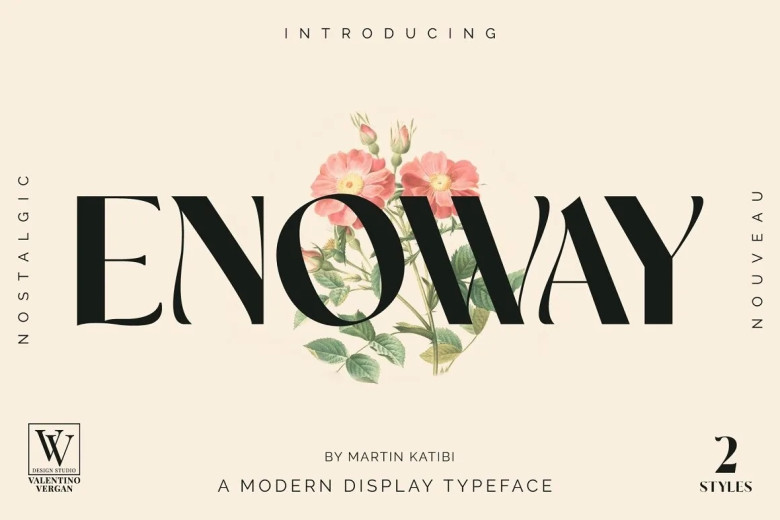
Enoway Font
Enoway designed typeface, inspired by the era The Art Nouveau, the early 20th-century style of graphic art, design, and architecture, is very elegant both in its shape and decorations where most of them are found an extra design reflect in the ended stem frames. Enoway has high contrast and thin hairlines giving this modern but nostalgic Nouveau feeling.
Enoway comes in two styles, Regular and Oblique, and a wonderful sans serif and light script, which will throw any new project in the 21st century. Enoway, which ideally fits most of your projects, such as, fashion branding, mastheads, magazines, feminine logos, Facebook banners, wedding invitations, Instagram posts, websites, blogs, ad text, and more.
Enoway Display Font